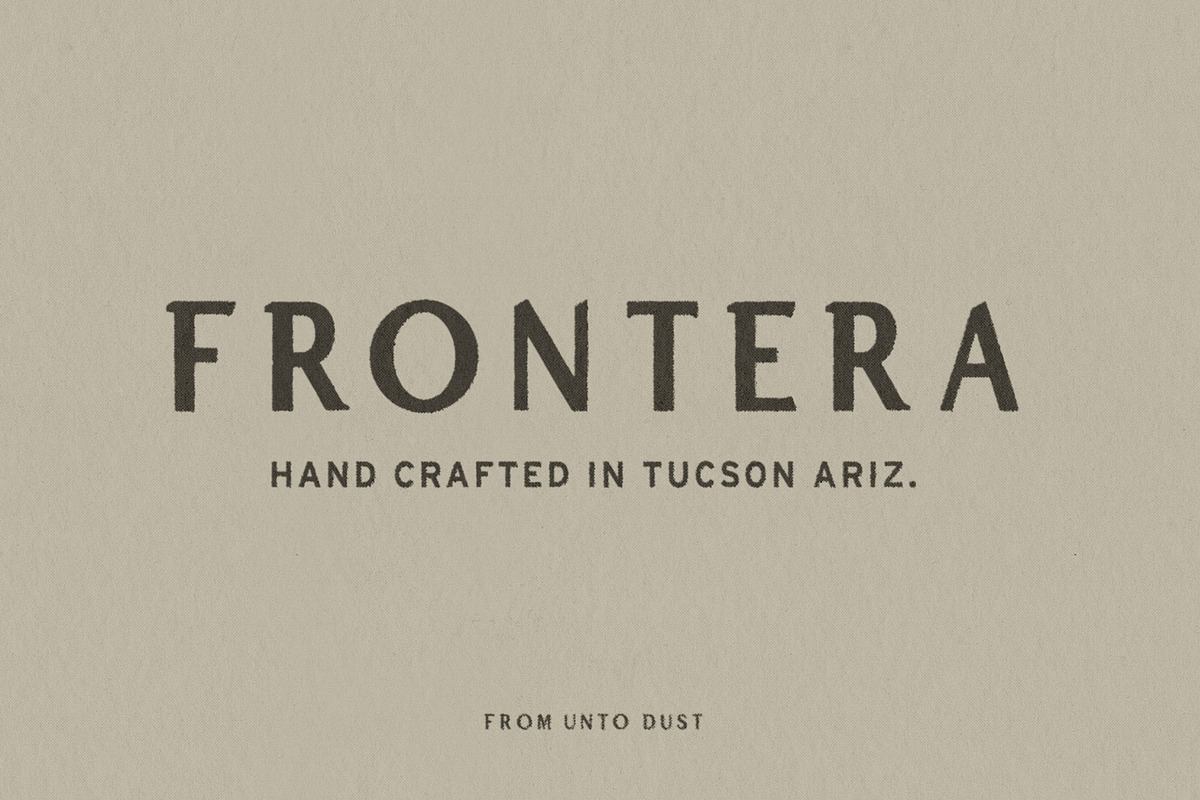
The Frontera Hand Crafted Font Free Download is a unique and artistic typeface designed to bring a handcrafted, personal touch to your designs. With its distinct, textured letterforms, this font is perfect for creating rustic logos, branding, invitations, posters, and other creative projects that require a more organic, hand-drawn feel. Whether you're working on a creative event, a rustic brand, or a personal design project, Frontera adds a charming and artistic vibe to your work.
Frontera Hand Crafted Font Free Download is ideal for designers looking to add a unique, handmade style to their work. Perfect for rustic branding, creative projects, and unique designs, this font will bring an authentic, organic feel to your designs. Download it today and infuse your projects with the warmth and charm of Frontera!